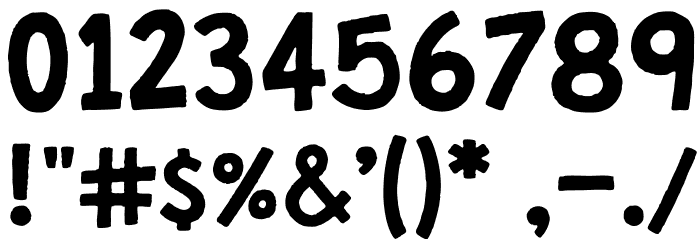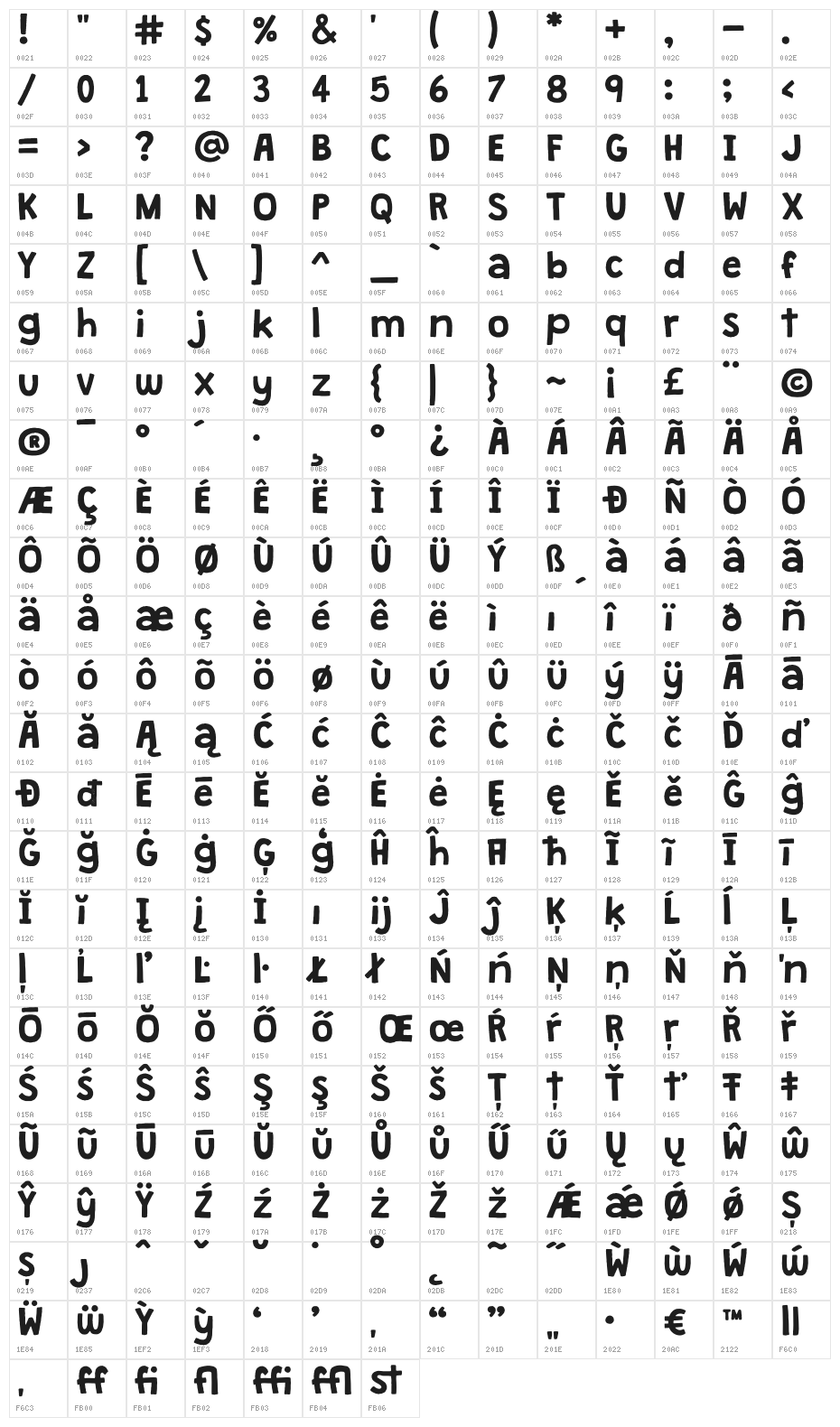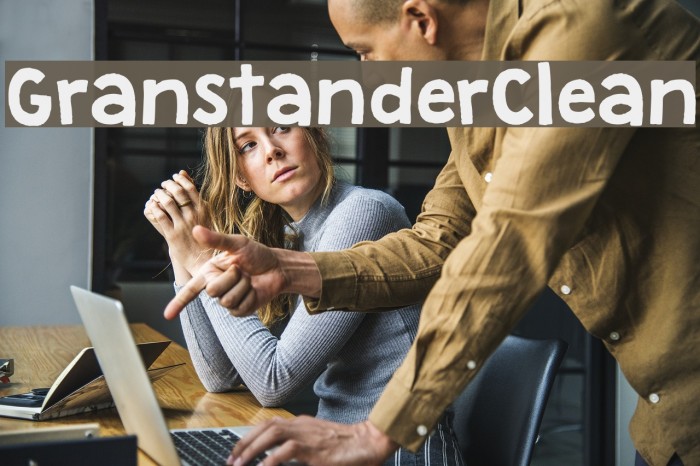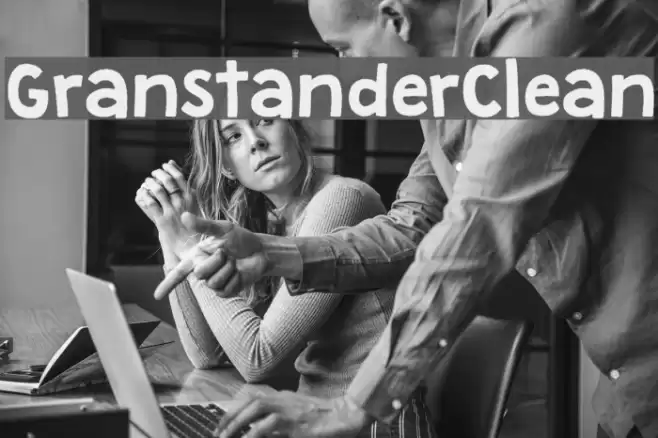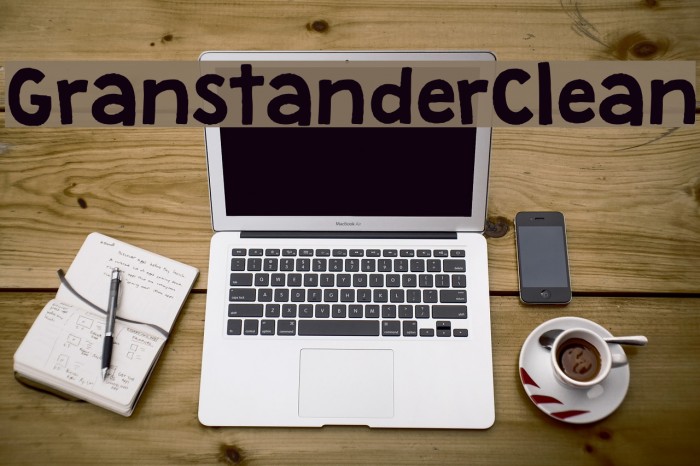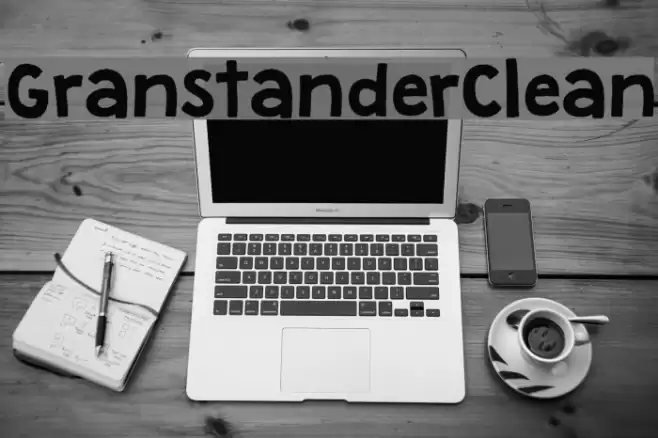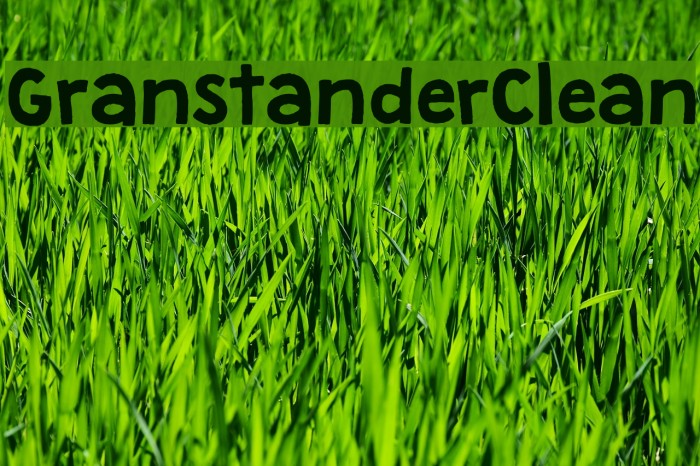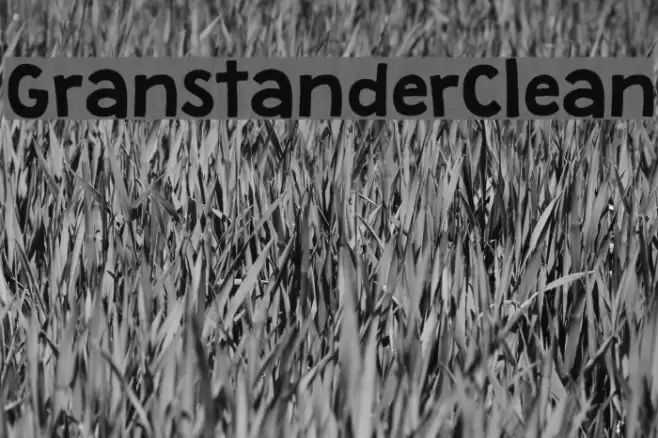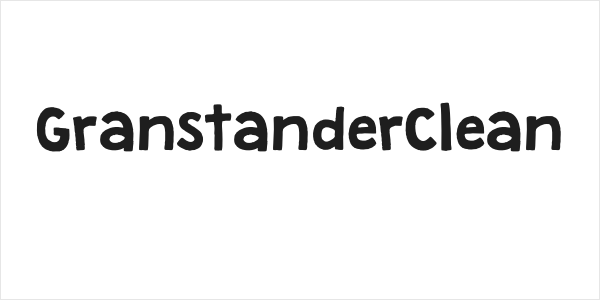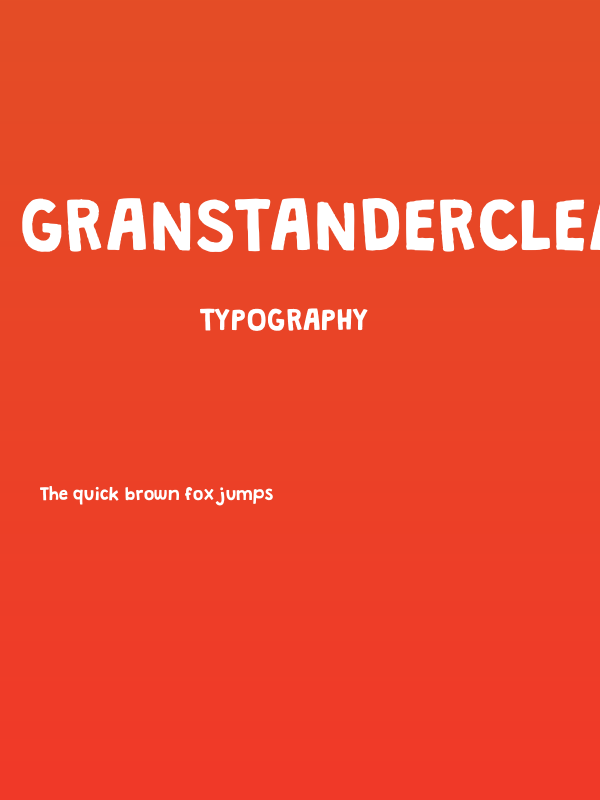
GranstanderClean Font
GranstanderClean Description
This font features a playful and bold design with a hand-drawn aesthetic. The characters are slightly irregular, giving it a casual and friendly appearance. The uppercase and lowercase letters maintain a consistent style, with rounded edges and a slightly uneven baseline that adds to its charm. The numerals and special characters follow the same playful design, making it suitable for creative and informal projects. The overall look is approachable and lively, perfect for capturing attention in a fun way.
Proposed ProjectsIdeal for children's books, posters, greeting cards, and playful branding.